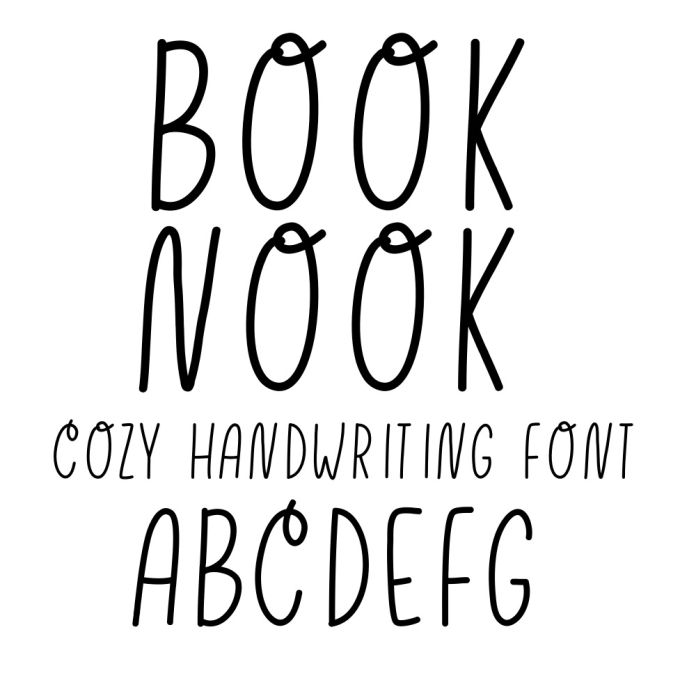
Book Nook Handwriting Font is a charming and whimsical sans serif font with a cozy nostalgic feel. With decorative elements and a playful style, this font is perfect for adding a touch of creativity and personality to various projects such as book covers, greeting cards, and social media graphics.